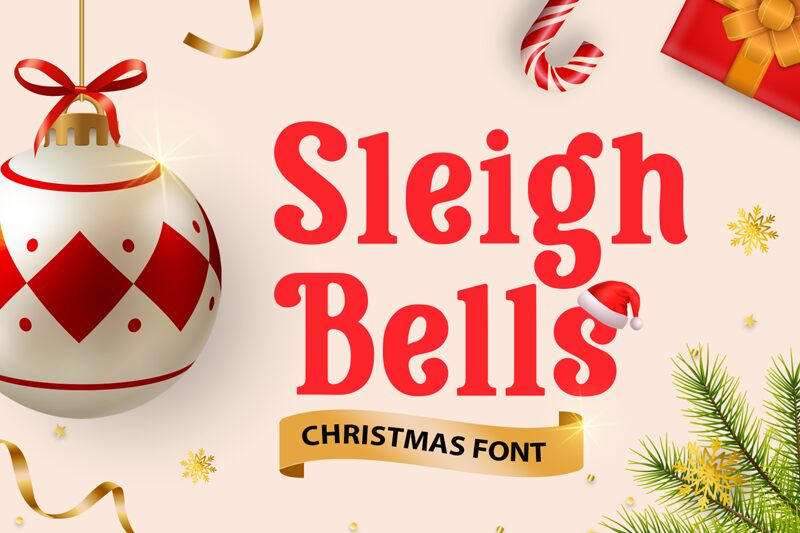
Sleighbells font family by Mozatype is a cheerful, inviting font family with two styles. The friendly, contemporary serif design is marked by a festive and warm spirit, perfect for your next holiday season project. Sleighbells carries a new twist on the old-fashioned Christmas fonts of the past.
If you want to grab the attention of your audience for a holiday promotion, Sleighbells has your back. It’s your choice for greeting cards, event posters, short movies, games, packaging, social media layouts, and more. Have fun bringing your designs into an authentic holiday mood.